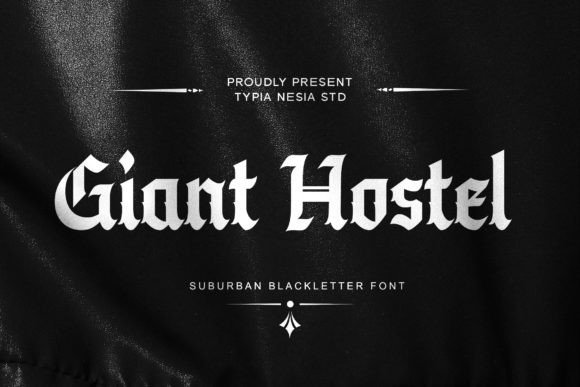
Step into the realm of the extraordinary with Giant Hostel, a font that will cast a spell on your designs. Its blackletter mystique exudes a captivating allure, akin to a midnight stroll through ancient cobblestone streets under an ominous moonlit sky. Each stroke, meticulously crafted by the talented minds at Typia Nesia, transports you to a world of mystery and intrigue, where the gothic hand-lettered style evokes the essence of a forgotten era.
Giant Hostel is not merely a font; it's an invitation to unleash your creative powers. Its versatile nature allows it to effortlessly blend into any design concept, transforming ordinary projects into captivating masterpieces. Whether you're conjuring logos that command attention, crafting branding that leaves a lasting impact, or weaving modern advertising designs that mesmerize, Giant Hostel will be your trusted companion.
Embrace the essence of Halloween with Giant Hostel, a font that perfectly captures the spine-tingling essence of the season. Its dark and brooding strokes evoke an atmosphere of mystery and suspense, promising to make your Halloween creations truly unforgettable. From haunting posters that send shivers down the spine to eerie invitations that set the stage for a thrilling night, Giant Hostel will be your creative ally, conjuring designs that linger in the minds of your audience long after the festivities have ended.
For those with a penchant for the gothic aesthetic, Giant Hostel is an absolute necessity. Its intricate details and bold presence lend an air of sophistication to any project, whether you're designing apparel that exudes a sense of mystery or creating hardcore music posters that demand attention. Giant Hostel will effortlessly transform your designs into works of art, captivating your audience with its timeless beauty and unwavering charm.
The possibilities with Giant Hostel are endless. Unleash your creativity and embark on an artistic journey with this remarkable font. Animate your designs with a touch of the supernatural, let your movie or animation projects come alive with a haunting atmosphere, and craft logos that speak volumes without uttering a single word. Giant Hostel is the key to unlocking your creative potential and leaving an indelible mark on the world of design.